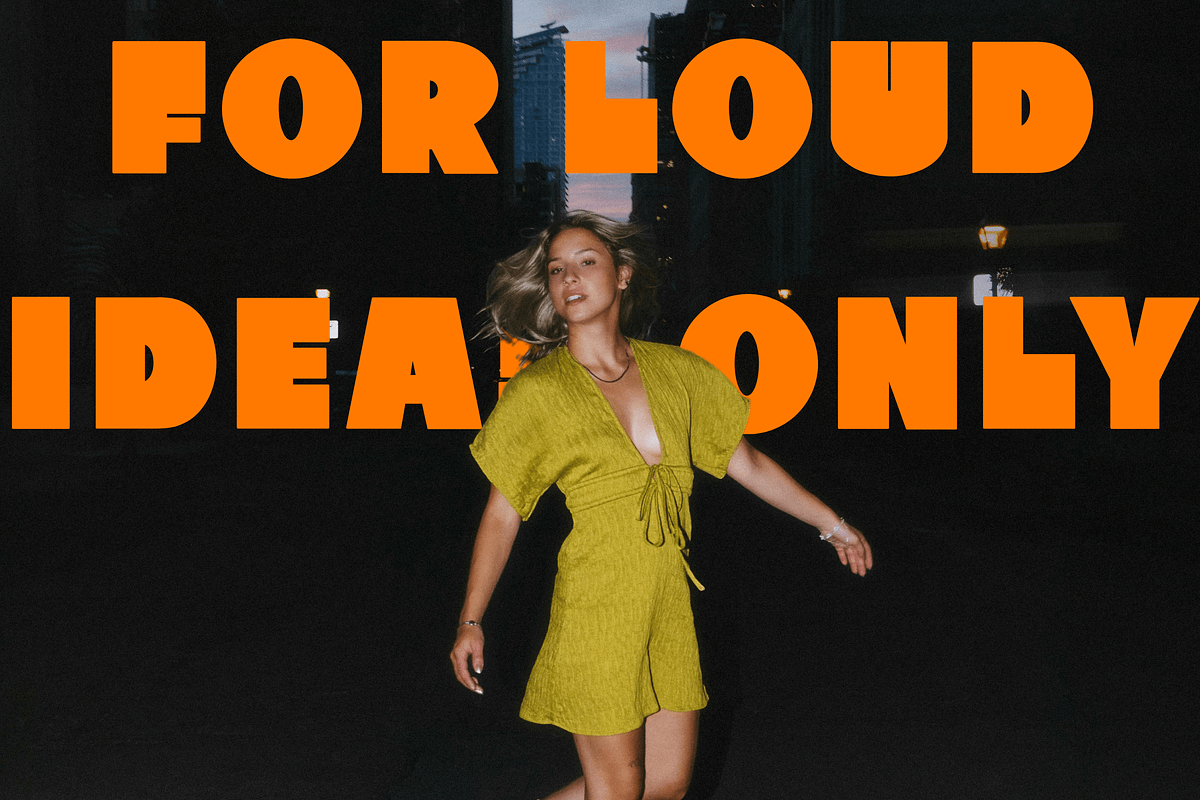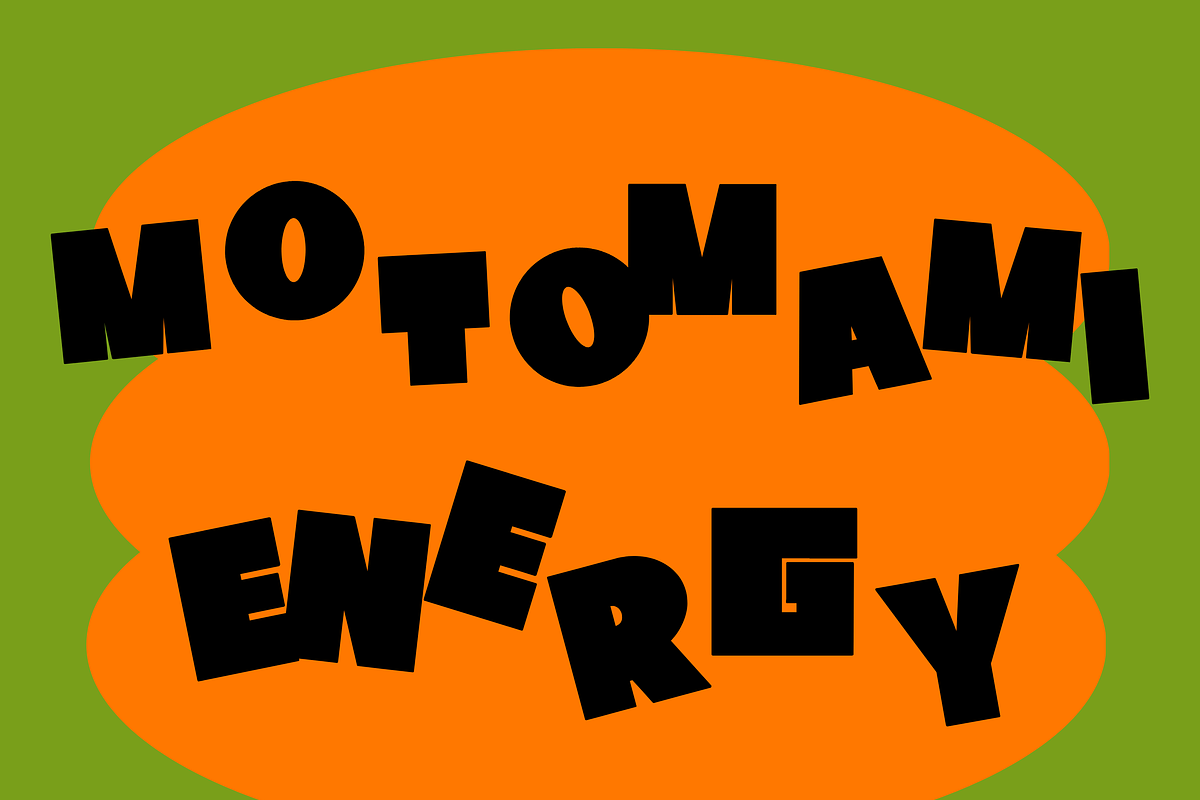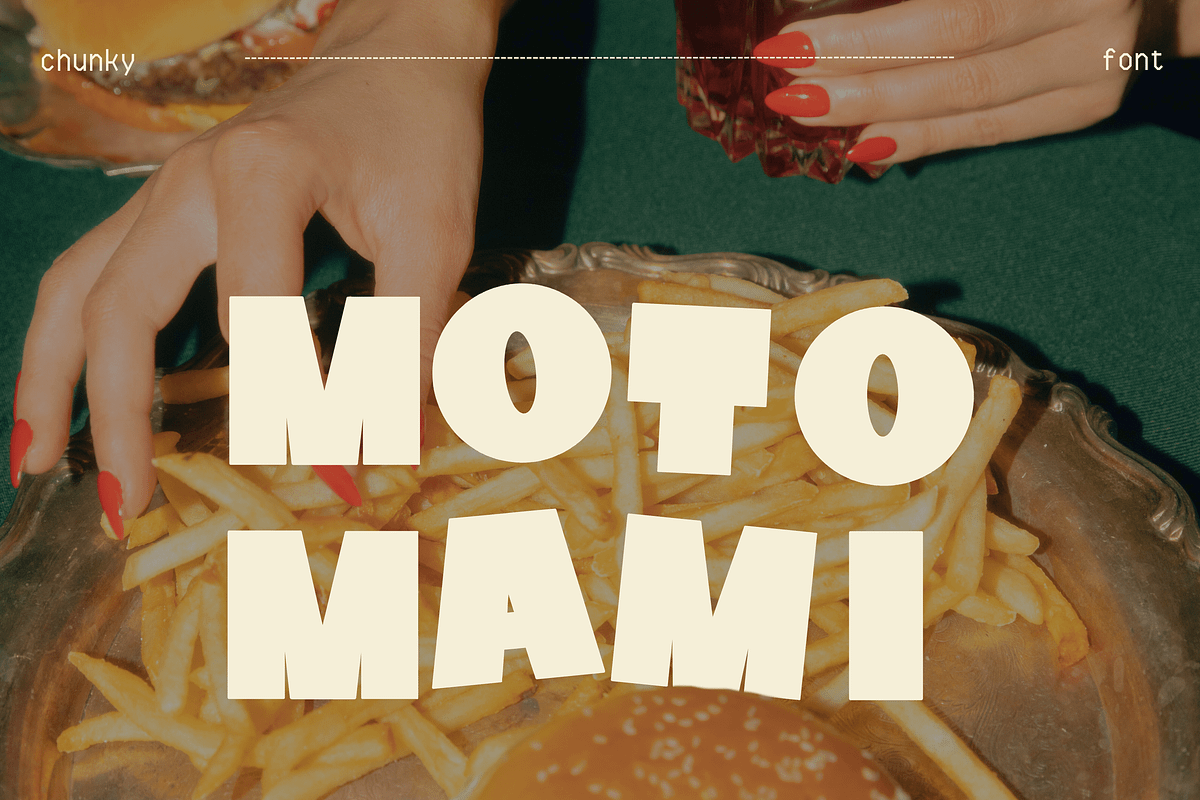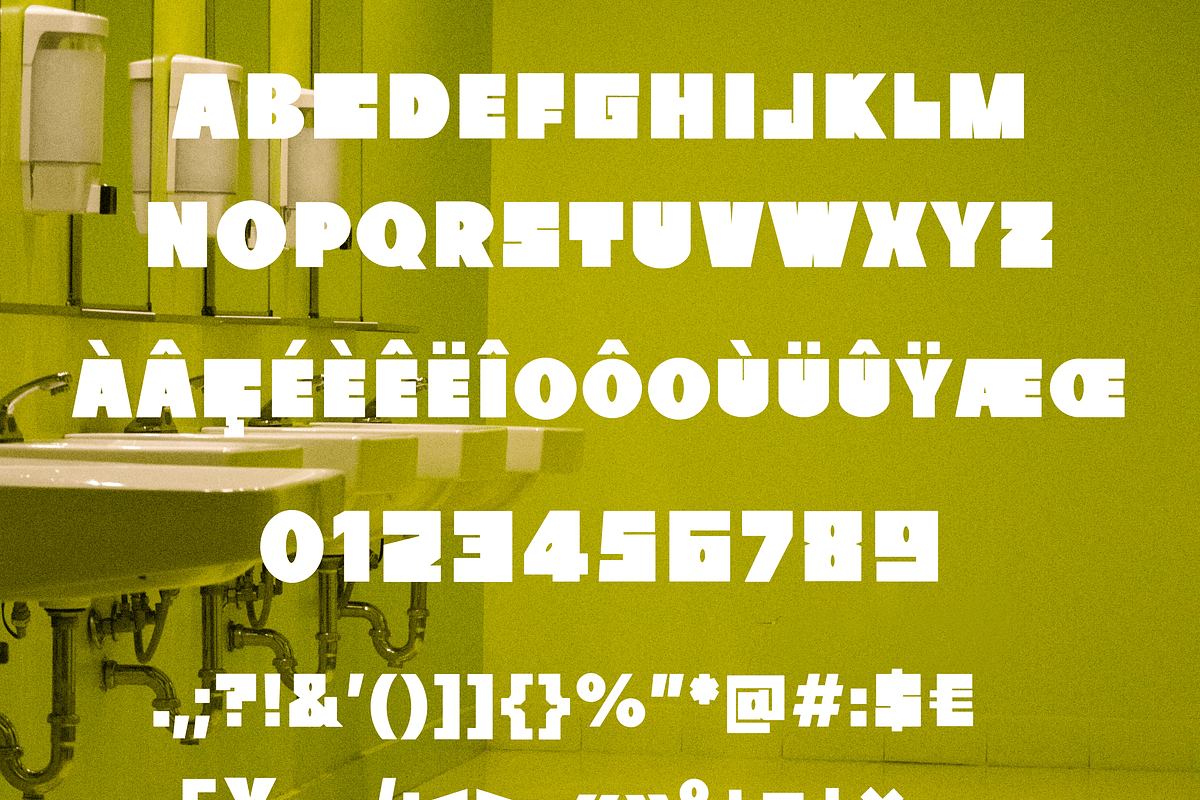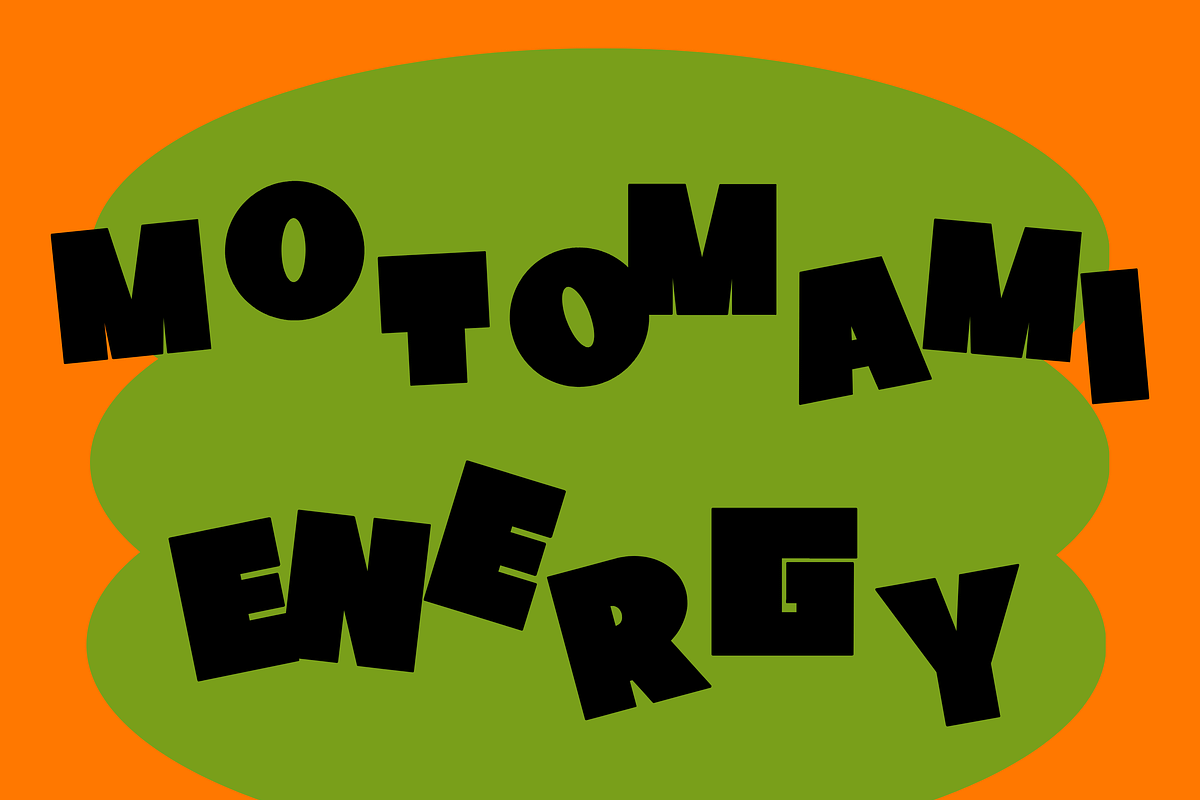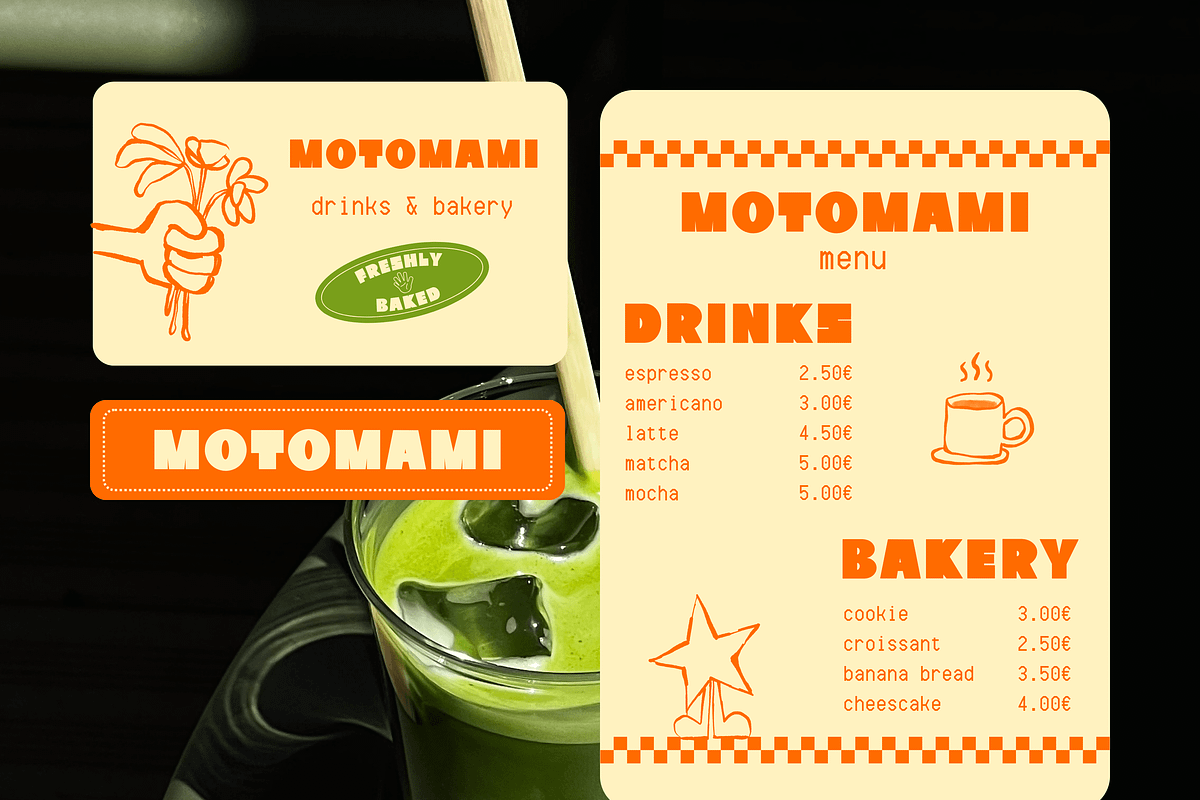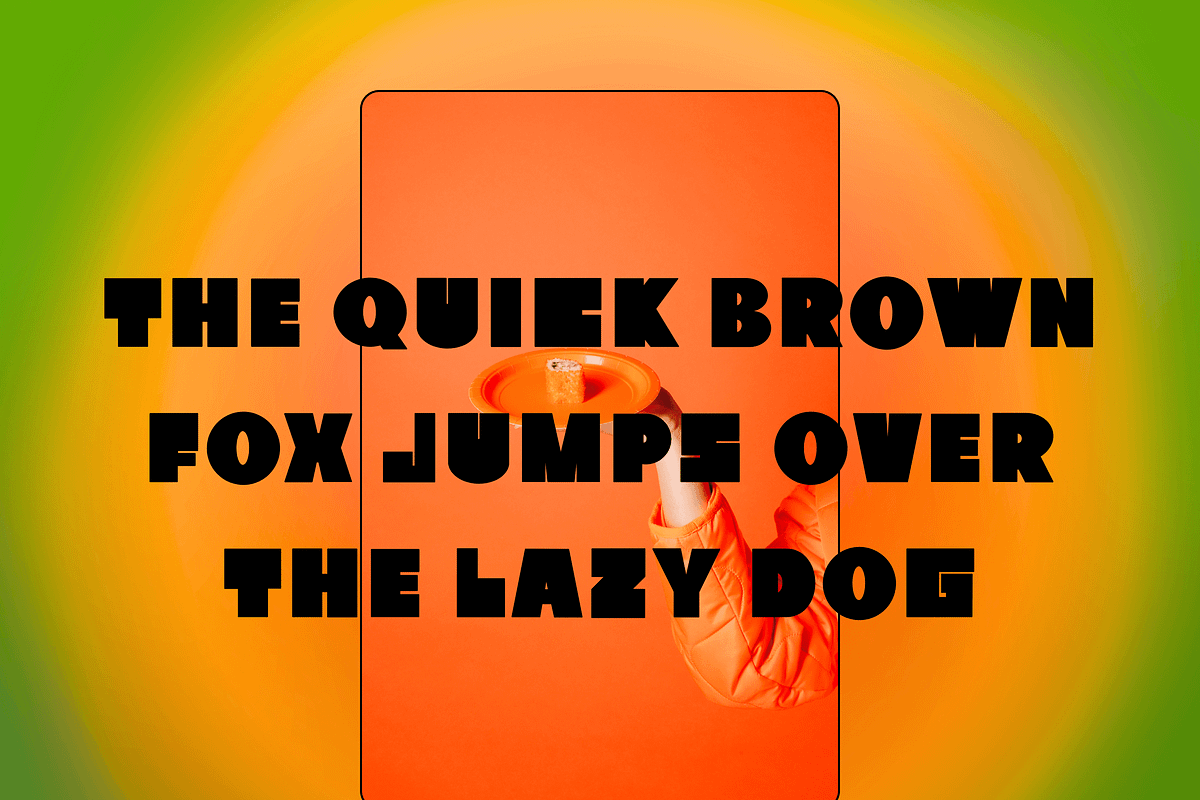
Motomami - Bold & chunky font
MOTOMAMI is a bold, chunky display font with sharp edges and a raw attitude. Designed to make a statement, it mixes strength and edge with a touch of pop energy. With its geometric cuts and unapologetic style, Motomami is perfect for punchy titles, bold branding, and any layout that calls for impact.
26 letters, accented characters, numbers, symbols & punctuation (112 glyphs)